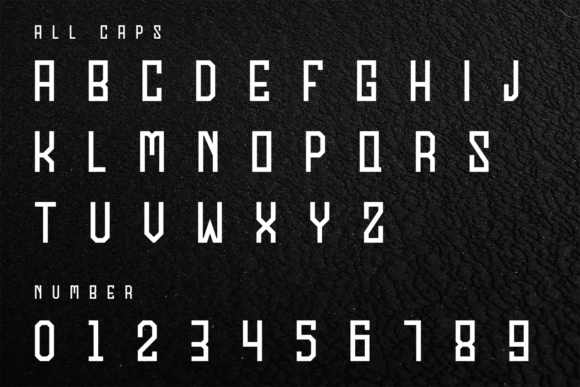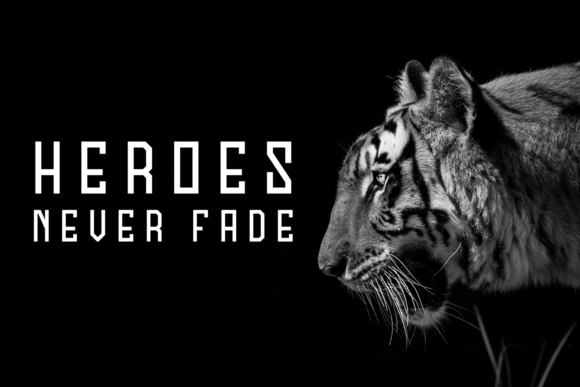
Introducing Badige Font: The Ultimate Modern Display Font for Creative Designs
Are you tired of using the same old fonts for your designs? Look no further! Badige Font is here to revolutionize your creative projects with its cool and modern display style. This unique font is perfect for designers and crafters who want to add a touch of personality to their work. In this article, we’ll dive into the world of Badige Font and explore its features, benefits, and uses.
What is Badige Font?
Badige Font is a modern display font that boasts a natural and unique style. Its distinctive look makes it incredibly versatile and fitting for a wide range of designs. Whether you’re working on a logo, branding project, or social media graphics, Badige Font is the perfect choice. The font’s creative and artistic vibe is sure to capture the attention of your audience and leave a lasting impression.
Key Features of Badige Font
- Unique Style: Badige Font has a one-of-a-kind design that sets it apart from other fonts.
- Modern and Cool: The font’s modern and cool style makes it perfect for trendy designs.
- Natural Look: Badige Font has a natural look that makes it easy to read and understand.
- Versatile: The font is suitable for a wide range of designs, from logos and branding to social media graphics and more.
Benefits of Using Badige Font
So, why should you choose Badige Font for your designs? Here are just a few benefits:
- Adds Personality: Badige Font adds a touch of personality to your designs, making them stand out from the crowd.
- Enhances Creativity: The font’s unique style inspires creativity and encourages you to think outside the box.
- Improves Readability: Badige Font is easy to read and understand, making it perfect for designs that require clear communication.
- Time-Saving: With Badige Font, you can create stunning designs in no time, saving you time and effort.
Uses of Badige Font
Badige Font is incredibly versatile and can be used for a wide range of designs, including:
- Logos and Branding: Create a unique and memorable logo that reflects your brand’s personality.
- Social Media Graphics: Add a touch of personality to your social media graphics and stand out from the crowd.
- Posters and Flyers: Create eye-catching posters and flyers that grab attention.
- Web Design: Use Badige Font to create stunning website headers, titles, and more.
Tips and Tricks for Using Badige Font
Here are some tips and tricks to help you get the most out of Badige Font:
- Experiment with Colors: Try out different colors to find the perfect combination that matches your brand.
- Play with Sizes: Experiment with different font sizes to create visual hierarchy and emphasis.
- Mix and Match: Combine Badige Font with other fonts to create a unique and interesting look.